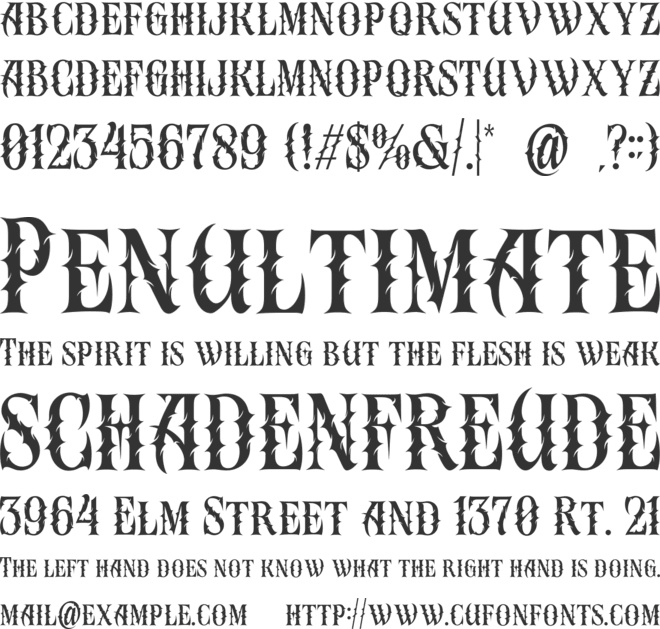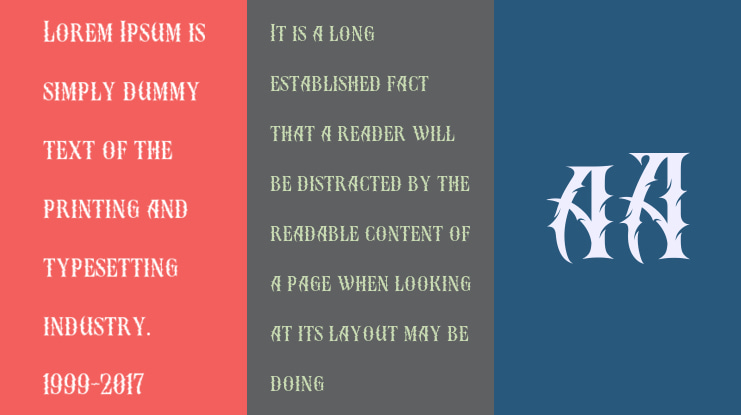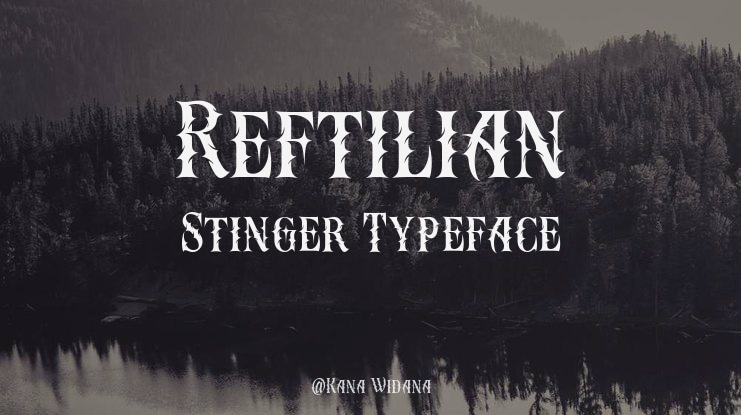
Reftilian Stinger Font
Kana Widana
Introducing Reptilian Stinger Typeface
Dive into the abyss of darkness with Reptilian Stinger, an aggressive and menacing dark gothic typeface. This is not just a font; it's an arsenal of predatory style, meticulously designed for projects that demand a sharp, powerful, and venomous aesthetic.
Reptilian Stinger is forged from the very essence of fear and shadow. The base letterforms are a "fierce serif" (blackletter) style, where each character is armed with dangerously sharp thorns and barbed edges. The flared, high-contrast strokes give it a dominant and brutal presence, perfect for making an unforgettable statement.This is font Demo just for personal use, Not permitted for commercial use.